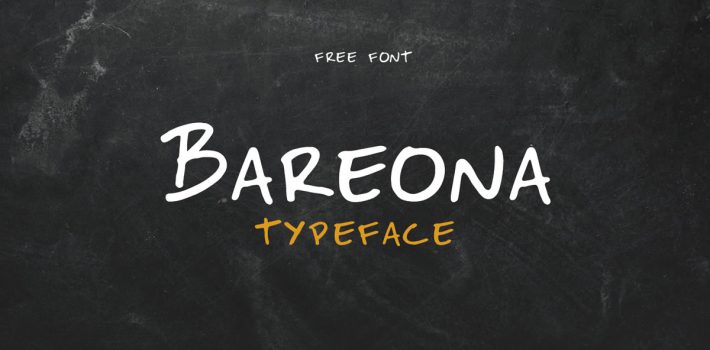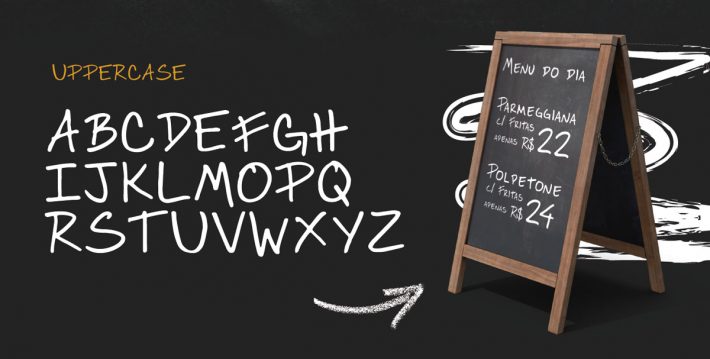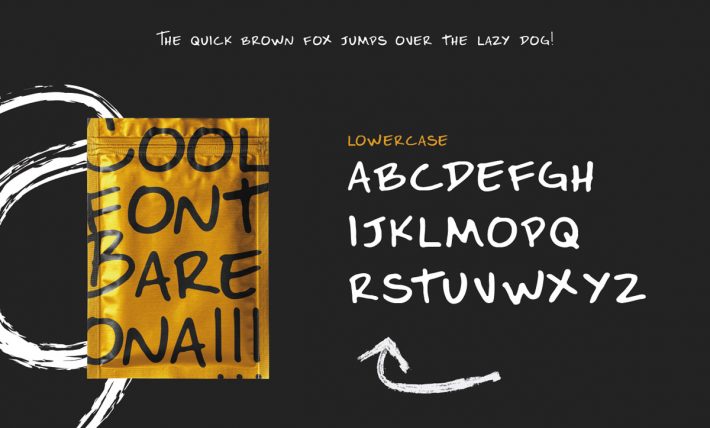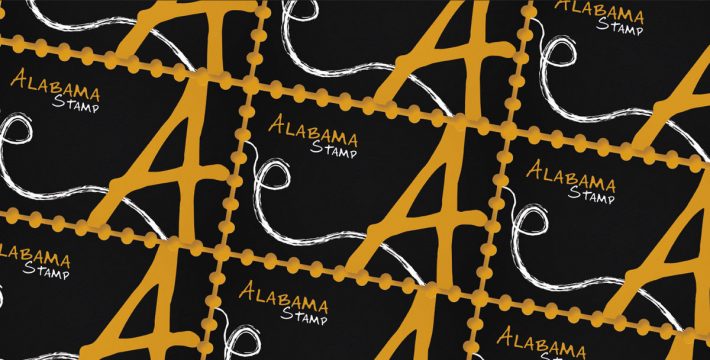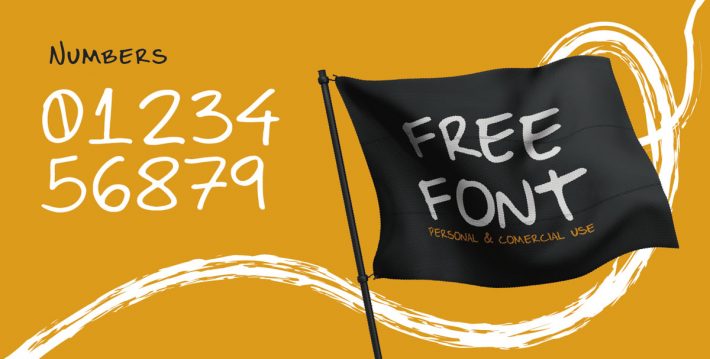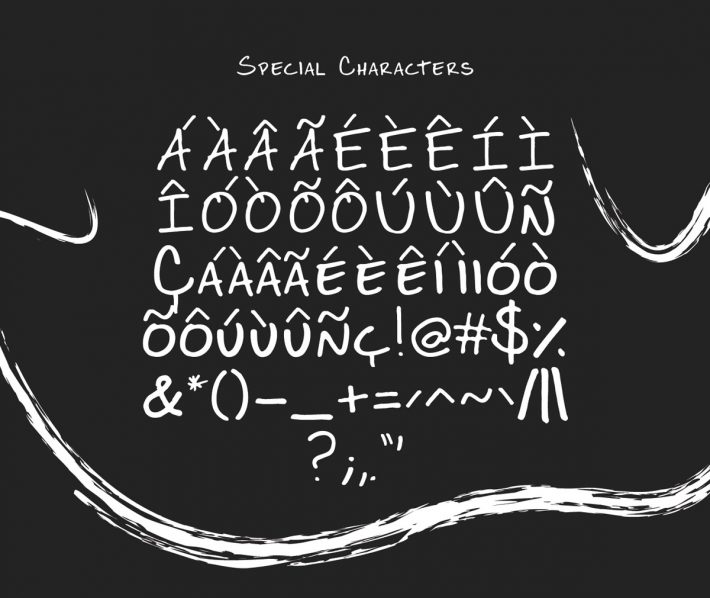
Bareona – Free Handwritten Display Typeface
Bareona is a handwritten typeface by Victor Zanin. This is inspired by vernacular typography that used on the Brazilian street bars and restaurants signs .
This font has uppercase, lowercase, numerals, symbols and is multilingual. Truly good for any kind of project..